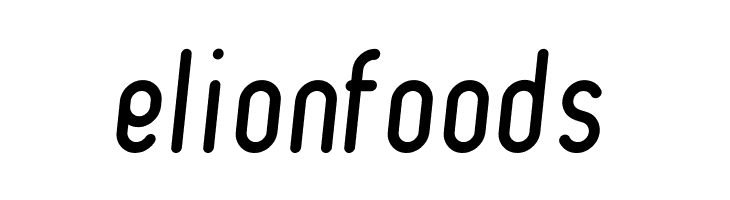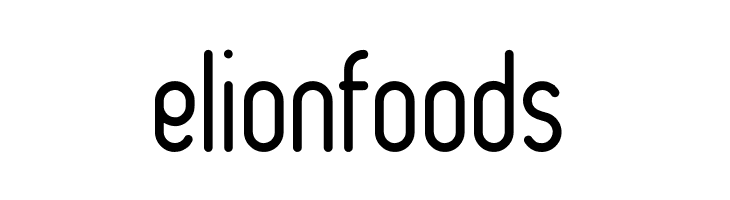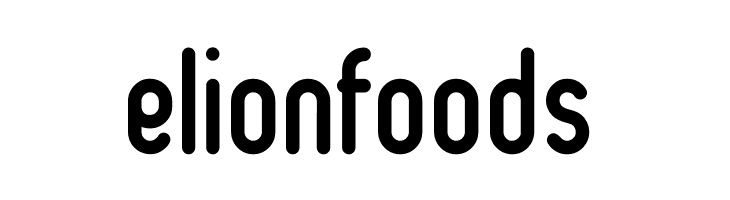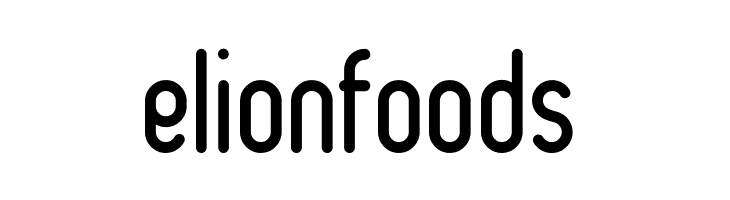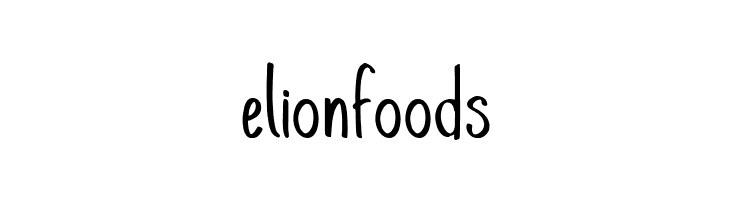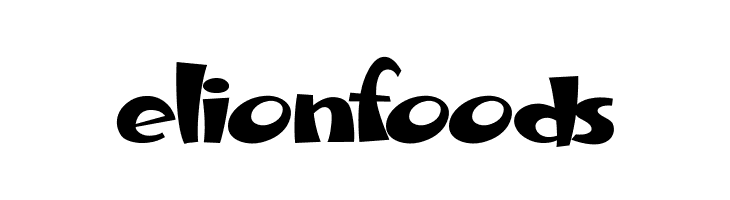
A modern, italicized font with rounded, smooth characters and consistent stroke width.
A bold, italic, and modern font with rounded edges and a slightly condensed style.
A modern, rounded font with a sleek, condensed design.
A bold, rounded sans-serif font with uniform strokes and a modern look.
A modern, rounded font with a clean and approachable design.
A playful, hand-drawn font with tall, narrow characters and a casual vibe.
A bold, playful font with exaggerated curves and whimsical flair.